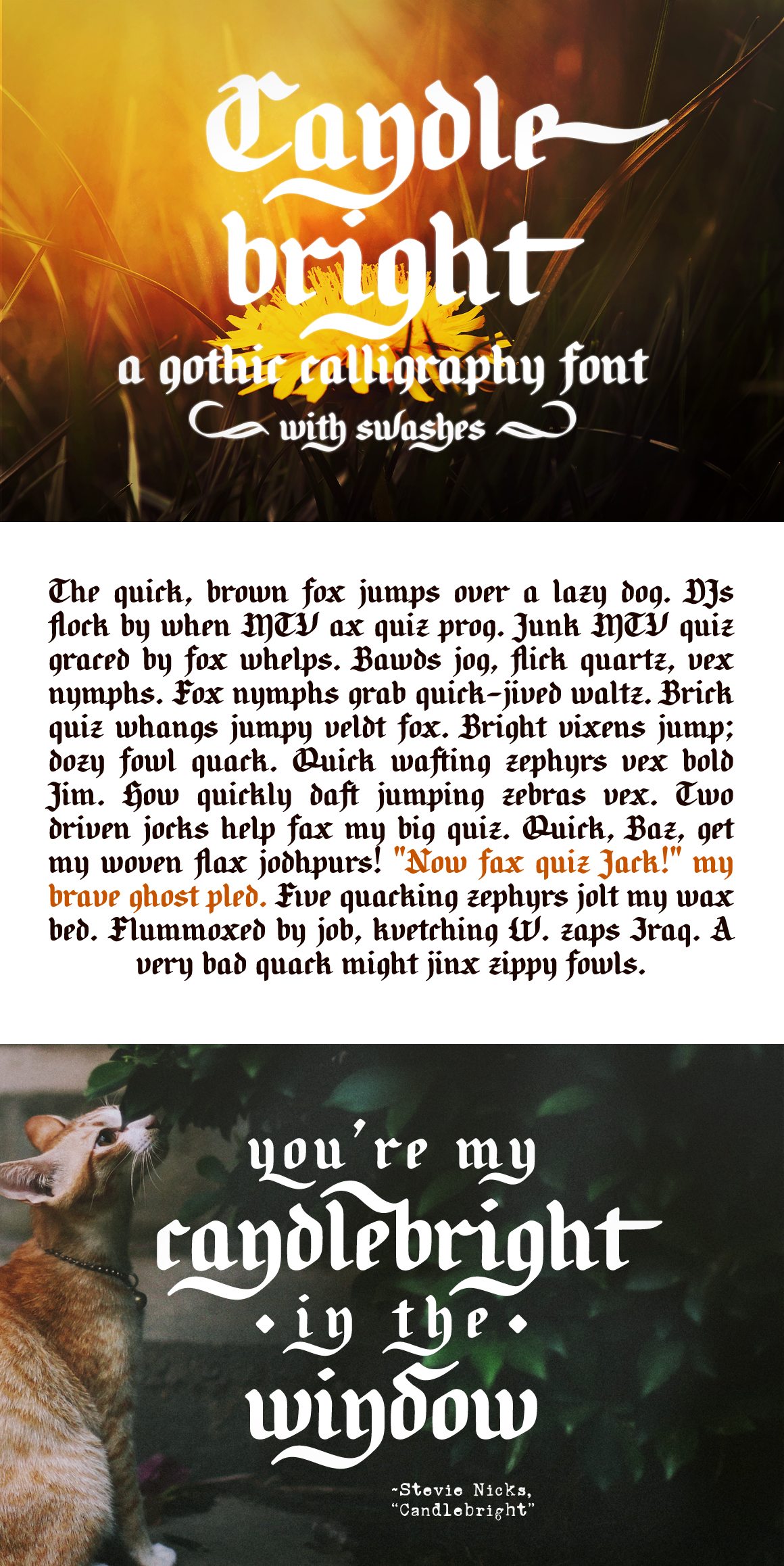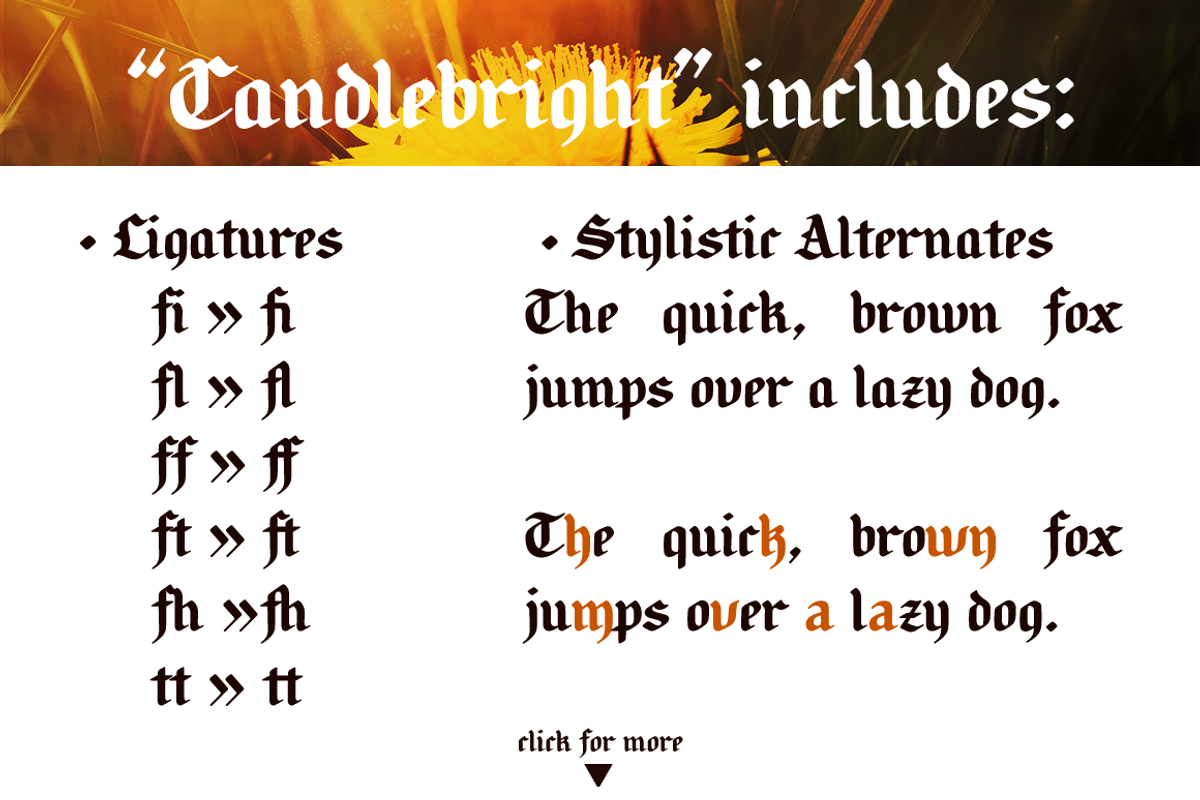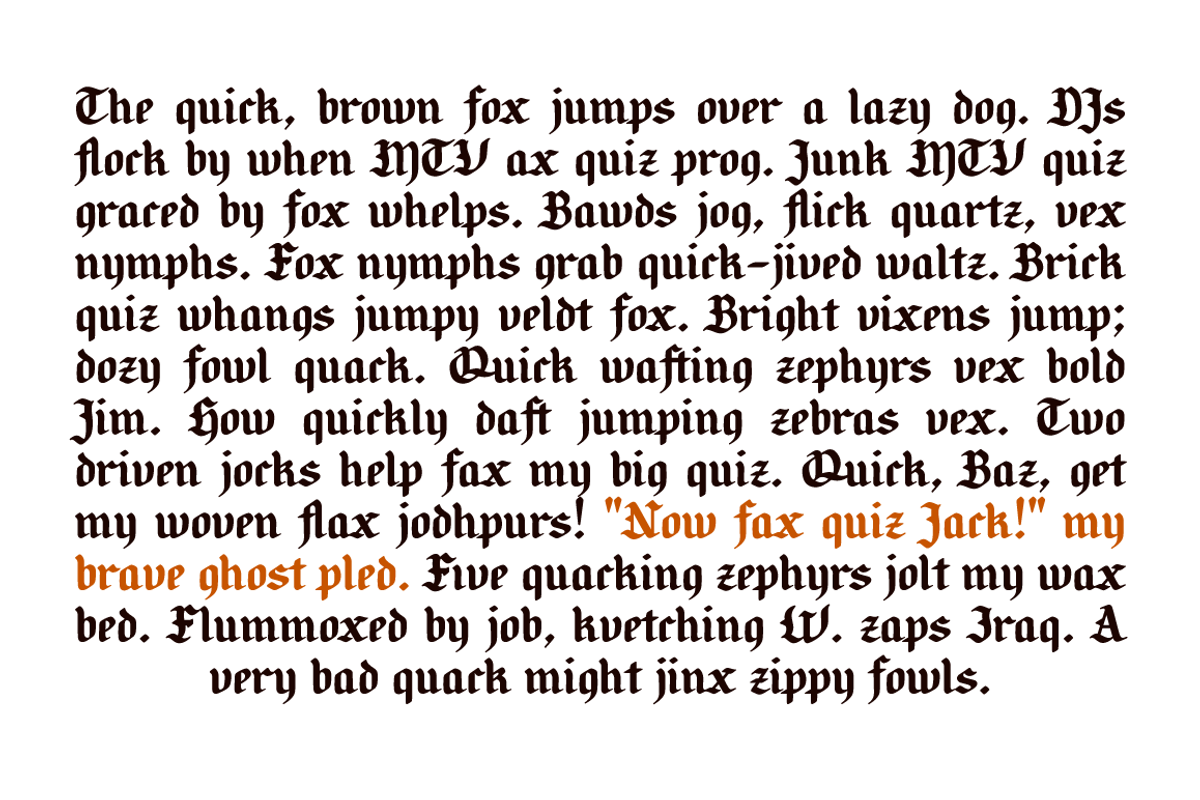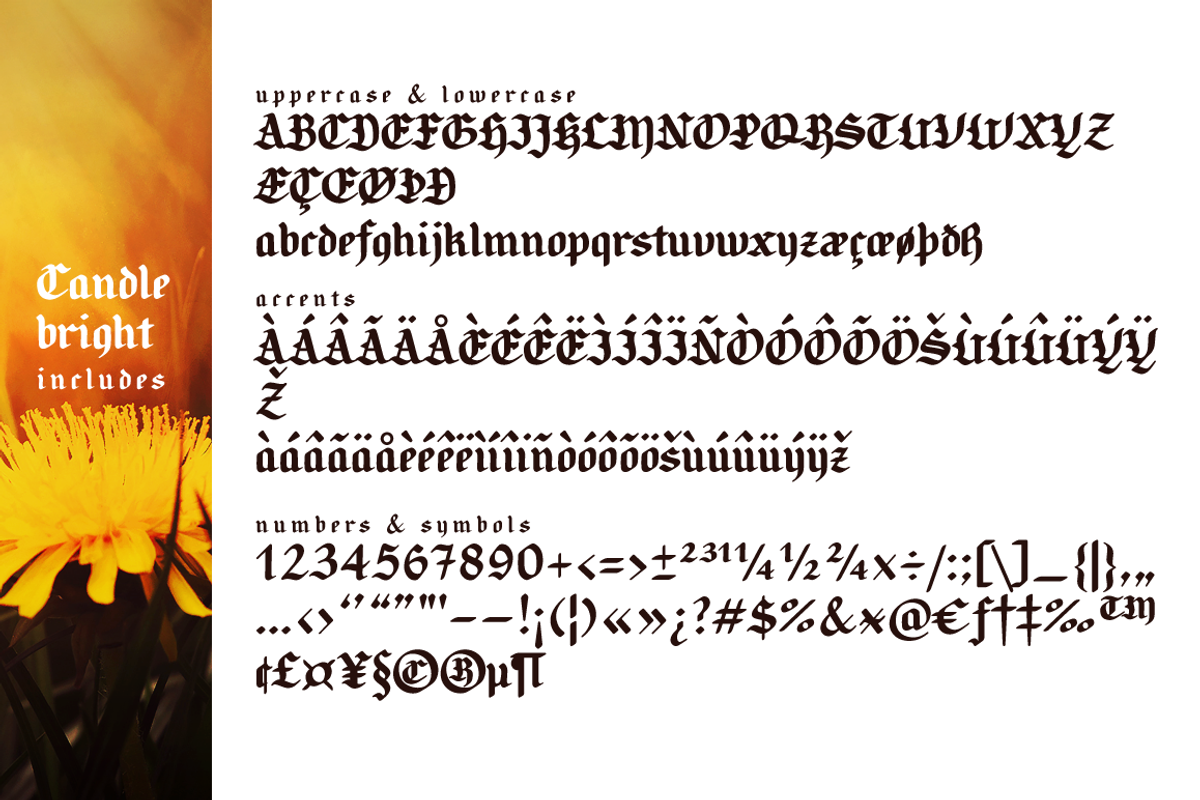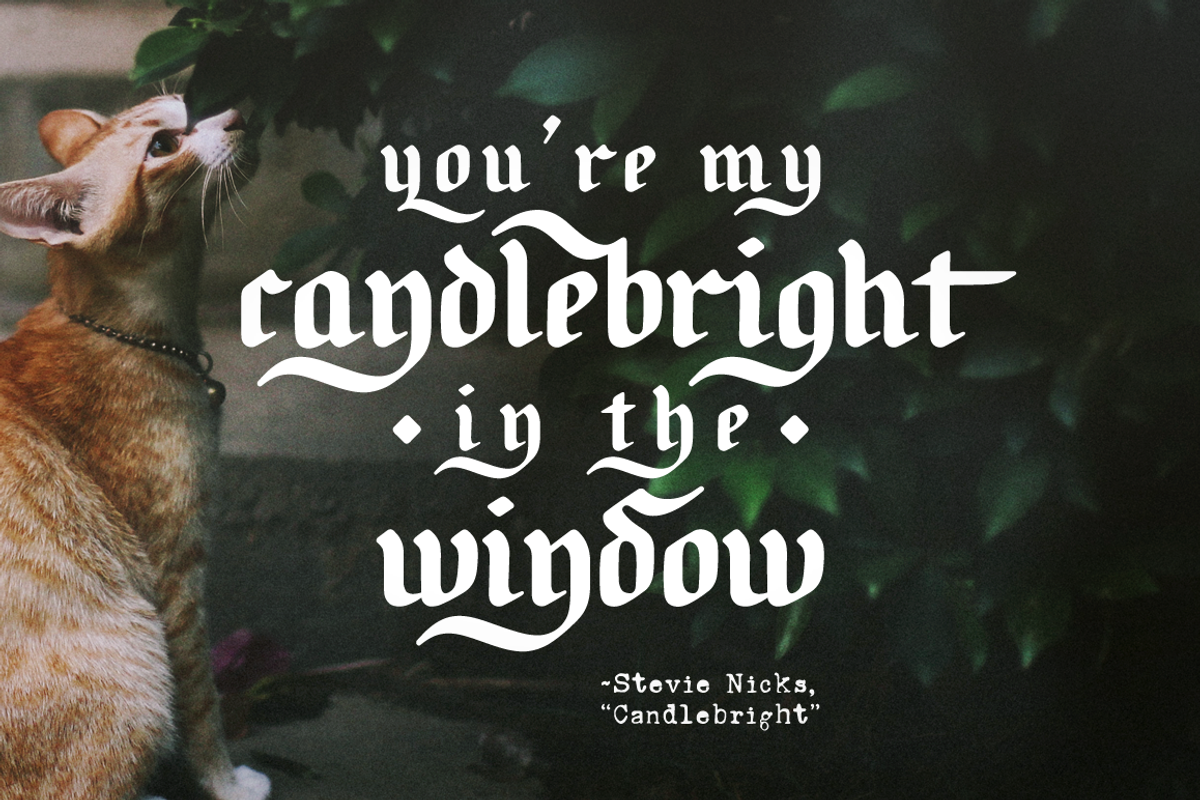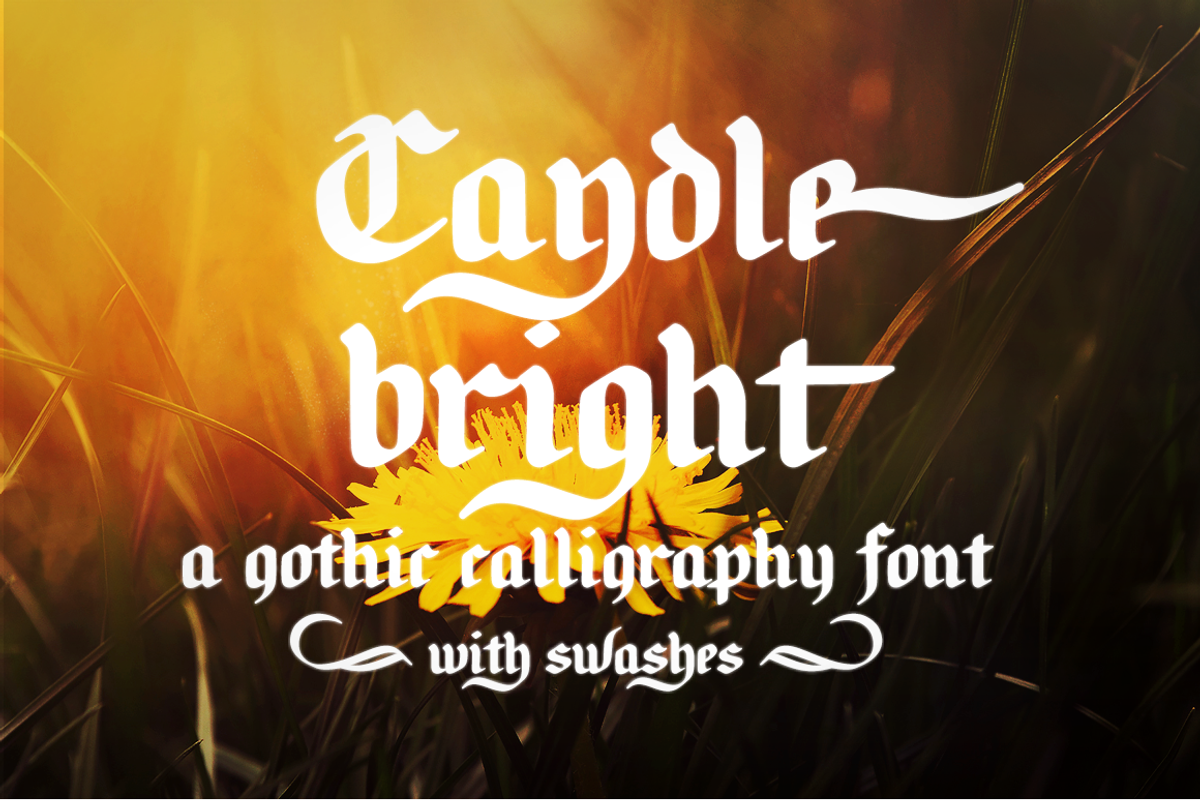
Candlebright blackletter font
Candlebright is a gothic calligraphy font, with 345 glyphs, including:
- A-Z, a-z, 0-9, accents, punctuation and symbols
- Stylistic alternates
- A set of matching ornaments.
Candlebright's smooth lines and round corners make it warmer than the average blackletter font, and it can be used for both vintage-inspired and modern designs.
Candlebright works particularly well in logotypes, or as a display font in editorial designs and websites. The set of matching ornaments is perfect to add a touch of elegance to any design, and you can use it to achieve eye-catching social media and promotional images.